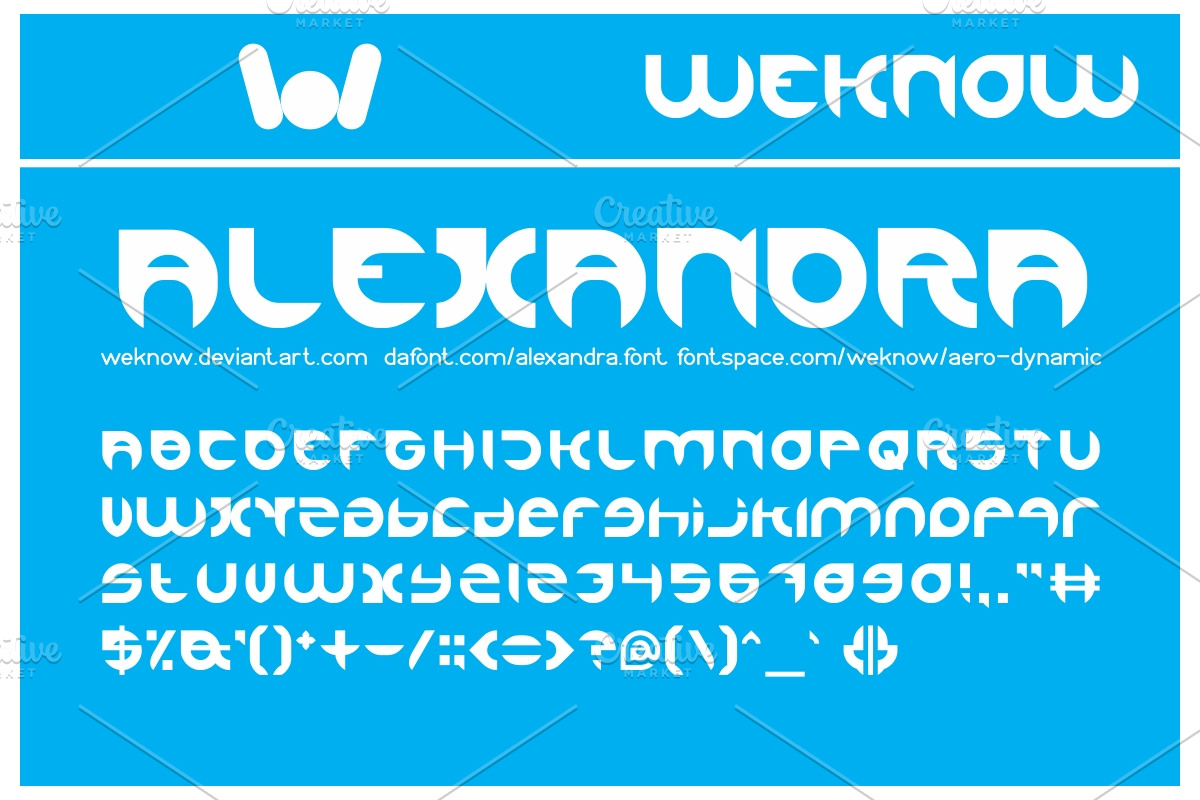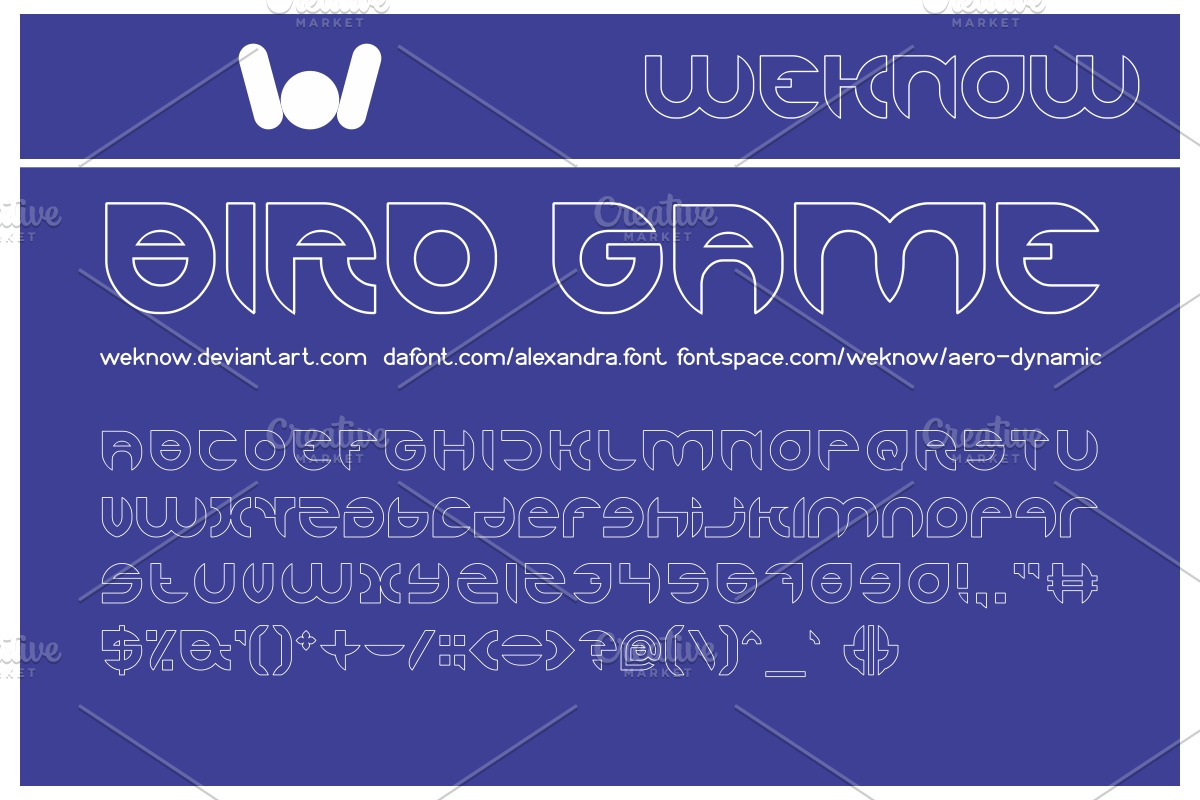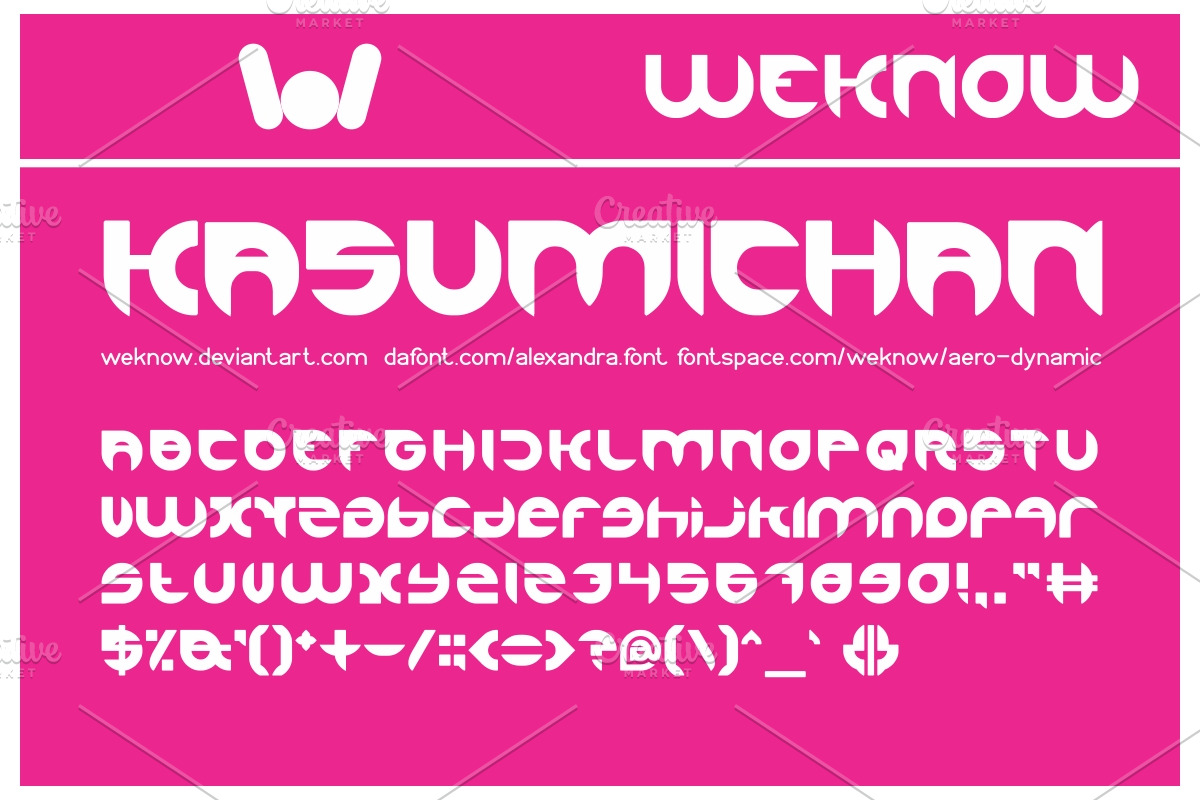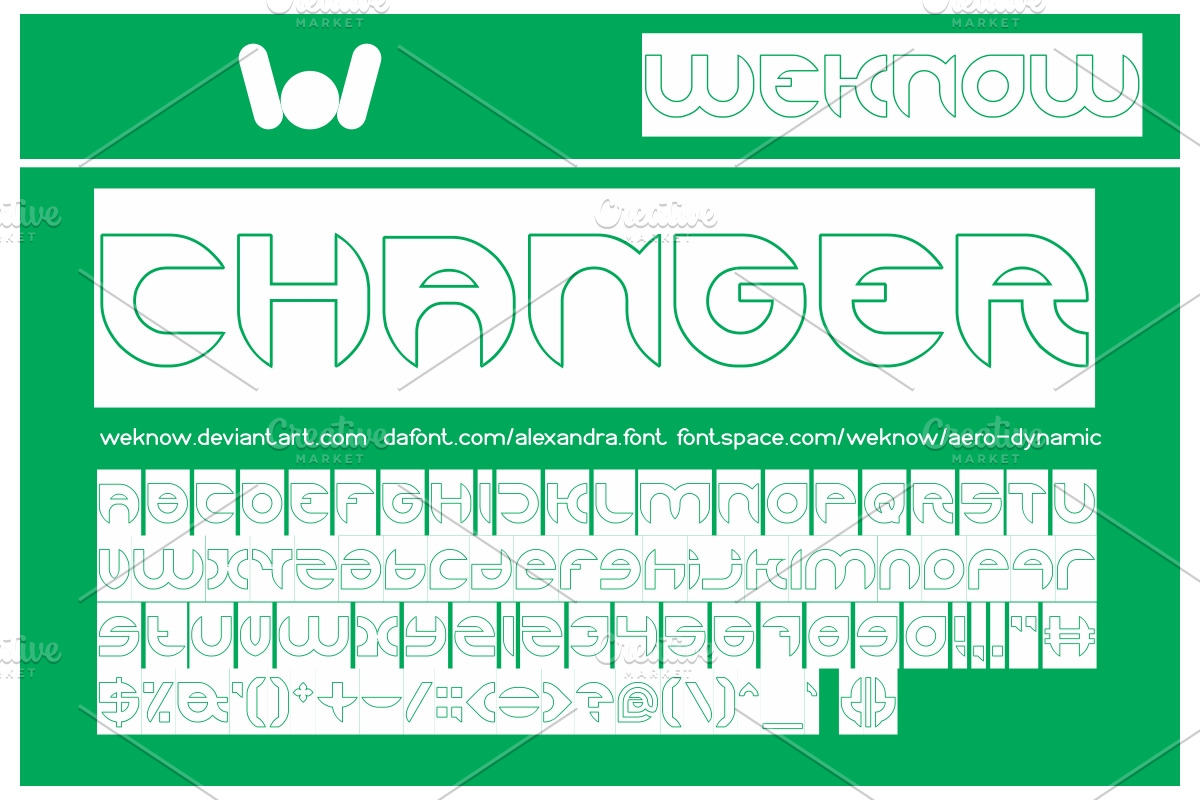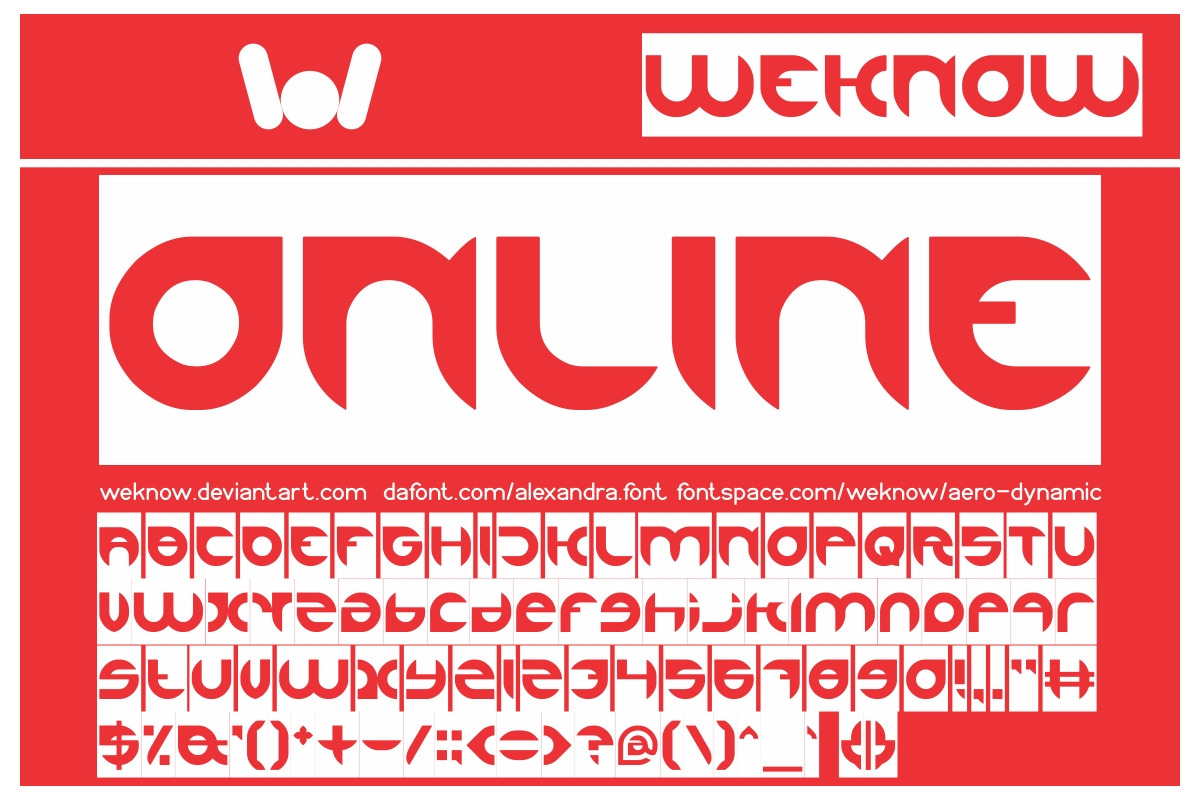
alexandra font
alexandra font by weknow is a font selected for branding, posters, packaging, typography.
Why alexandra font is worth a look
alexandra font by weknow fits naturally into Branding, posters, packaging, typography.